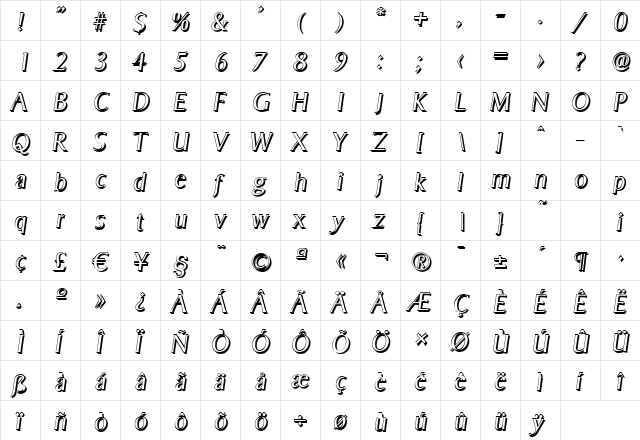
BruceBeckerShadow-Light Italic Font Preview
Design Context for BruceBeckerShadow-Light Typeface
BruceBeckerShadow-Light is built around its visual character rather than neutral utility — its distinctive forms are designed to make an impression at display sizes. The slanted form adds forward momentum and visual energy. Its slender proportions lend an understated elegance to any composition.
Font Pairing: Pair with a clean neutral sans-serif for body copy to let BruceBeckerShadow-Light's character lead without overwhelming the composition.
Pro Tip: Treat BruceBeckerShadow-Light as the centrepiece of your typographic hierarchy. One strong heading set in a decorative face can carry an entire layout.